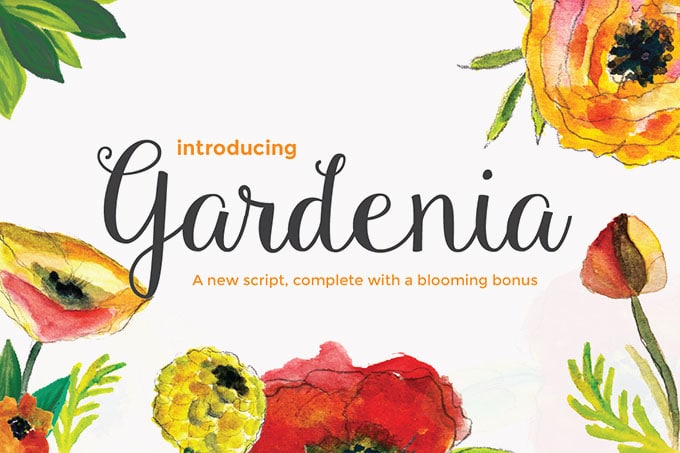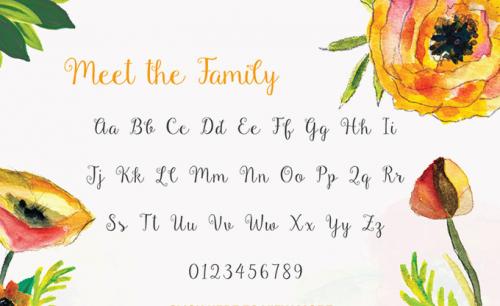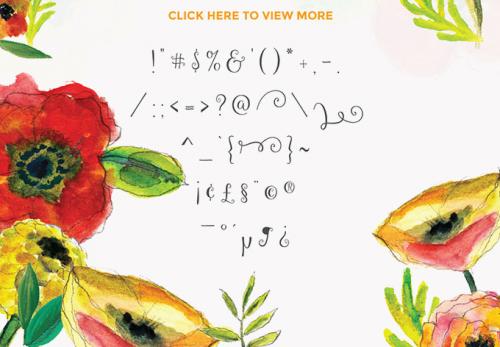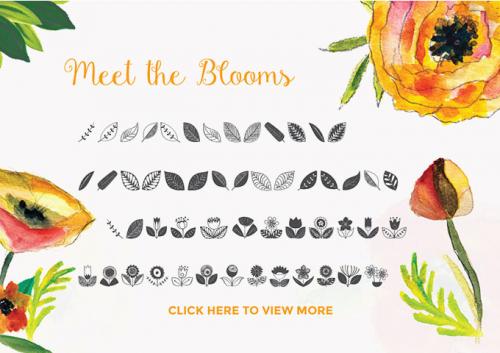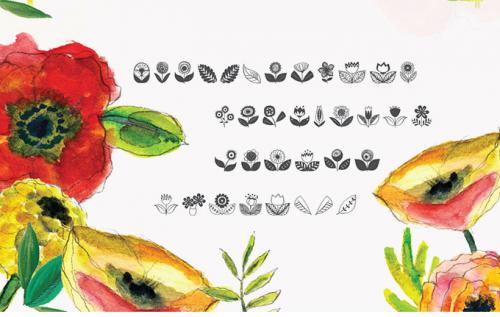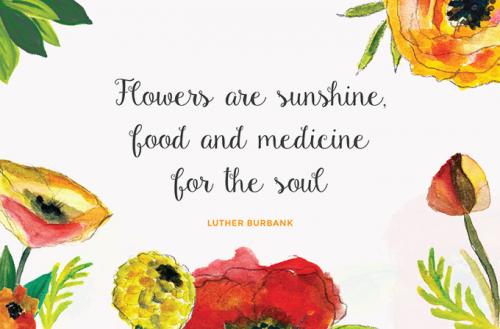
Gardenia Script Font
Gardenia Script Font was designed by Emily Spadoni. A professional designer. Gardenia Script is a new hand crafted typeface inspired by the springtime. Hand drawn characters are a warm addition to any project.